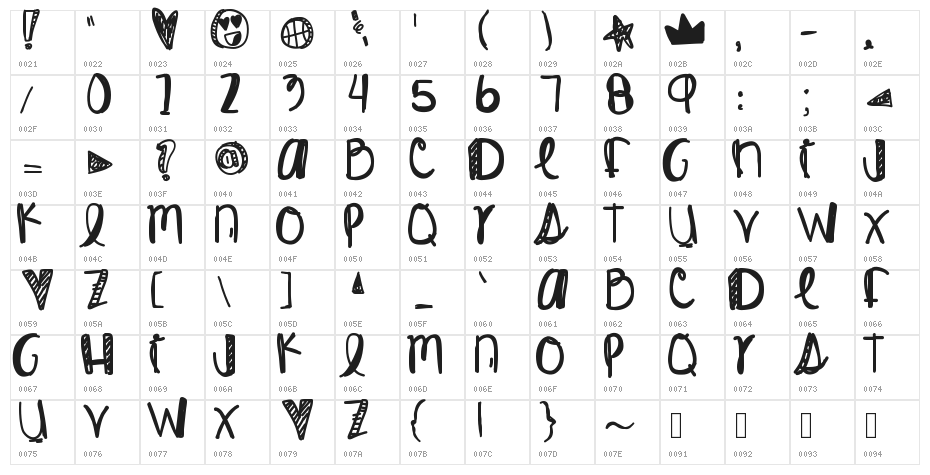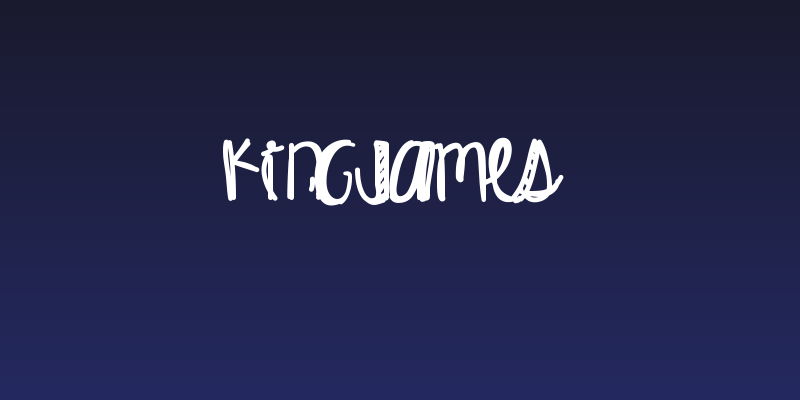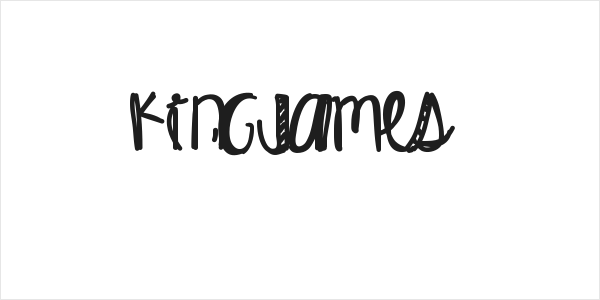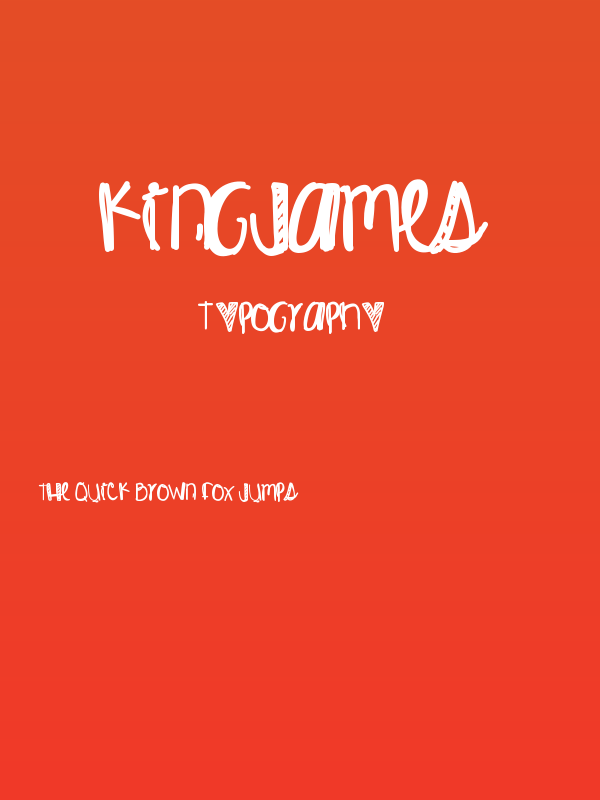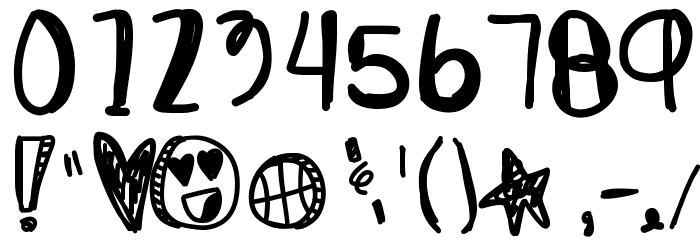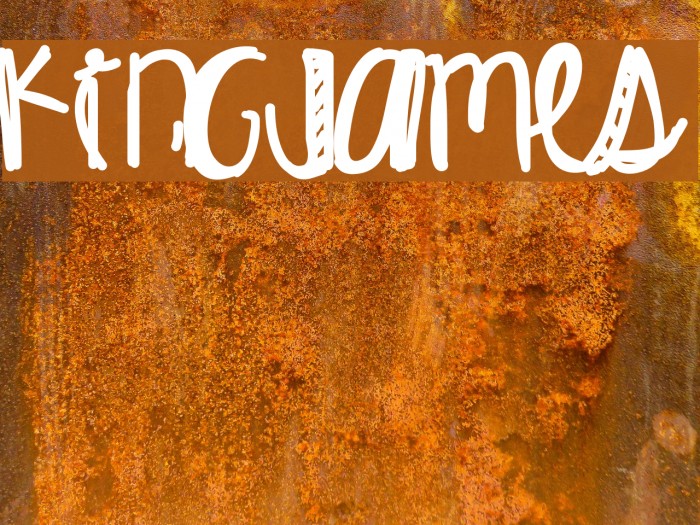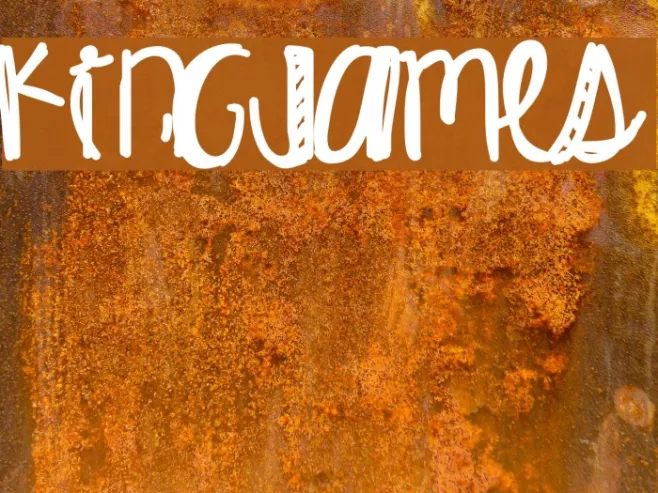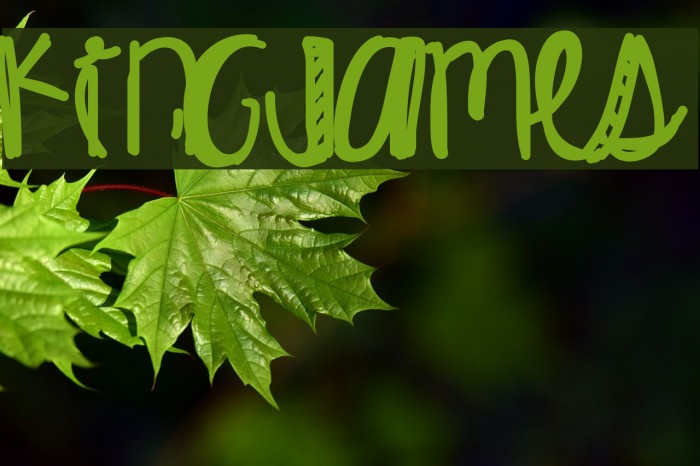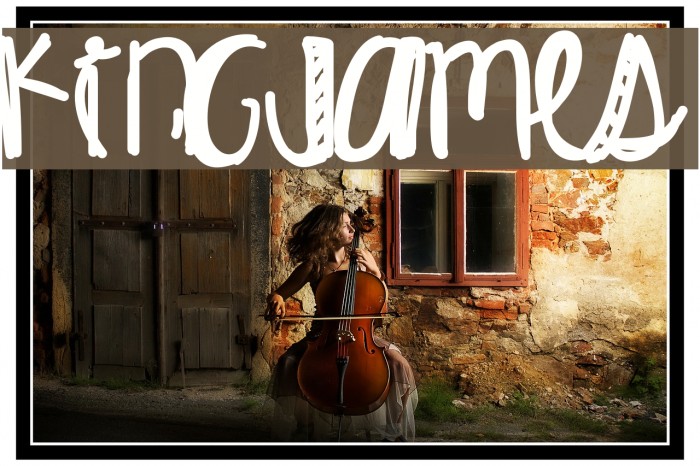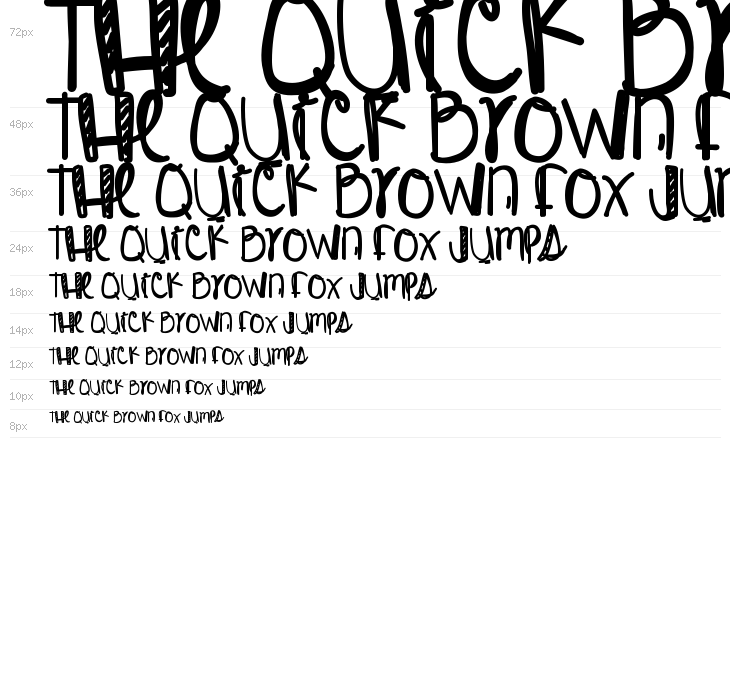
KingJames Font
KingJames Description
This playful and quirky font features a handwritten style with bold, uneven strokes that give it a lively and energetic appearance. The uppercase and lowercase letters exhibit a consistent, casual flow, with some letters incorporating unique decorative elements such as stripes and dots. The numbers maintain the same whimsical style, ensuring a cohesive look across all characters. Special characters, including punctuation and symbols, are designed with the same playful flair, making this font ideal for projects that require a fun and informal touch.
| Proposed Projects | Ideal for children's books, greeting cards, playful branding, and social media graphics. |